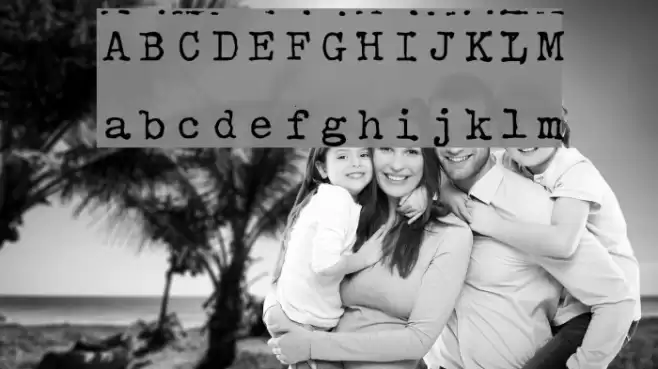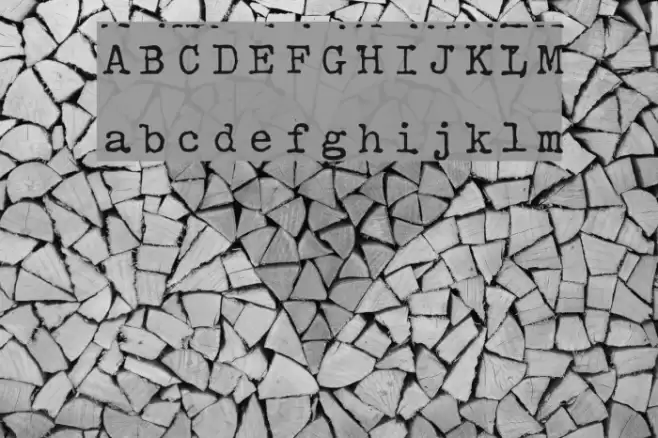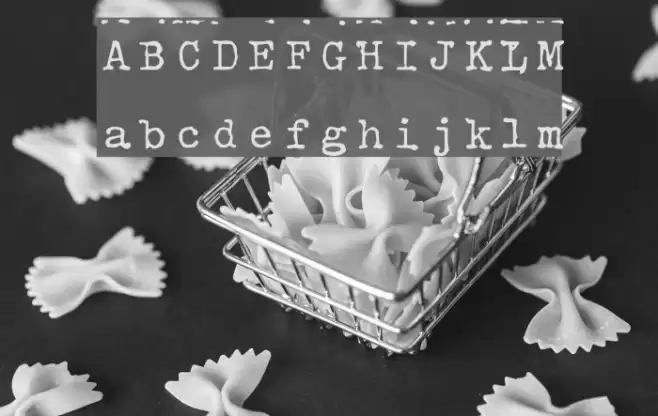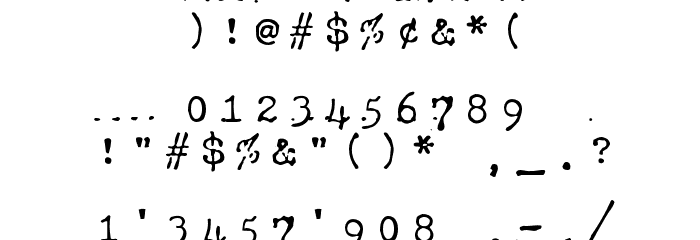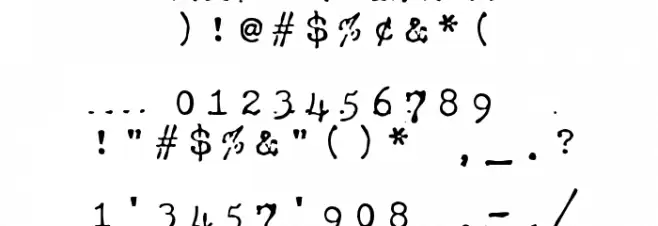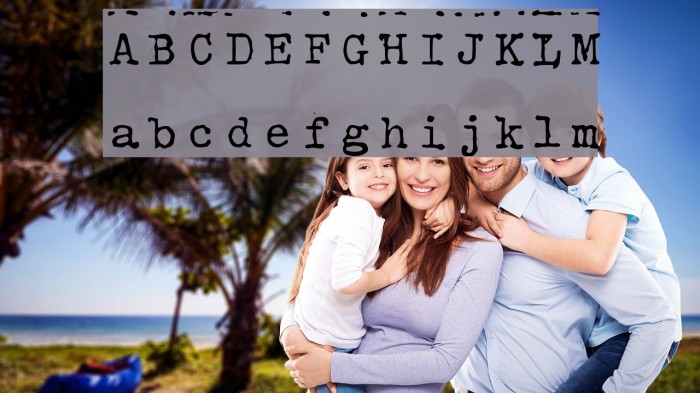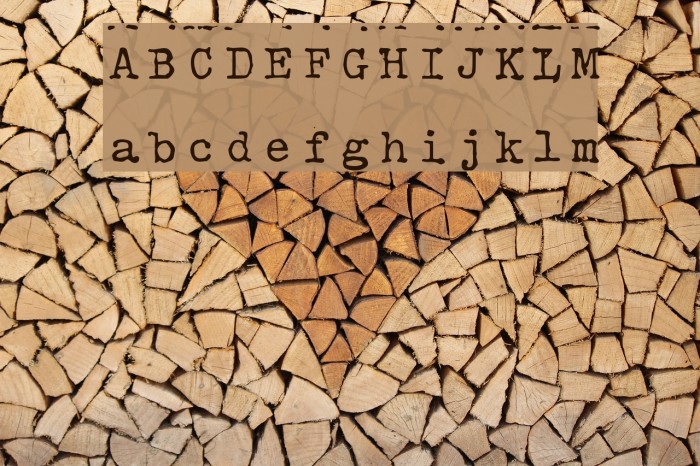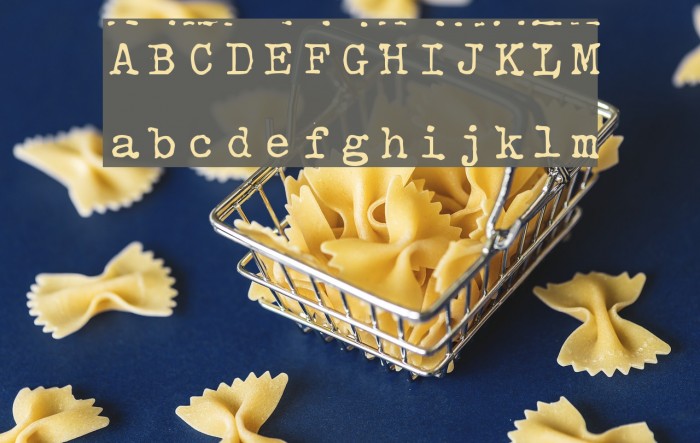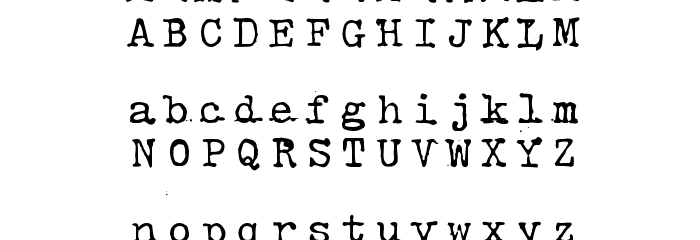
HammerKeys Font
HammerKeys Description
This font exudes a vintage, typewriter-inspired aesthetic with a slightly distressed appearance, giving it a nostalgic and authentic feel. The characters are monospaced, contributing to a uniform and orderly look, while the irregularities in the letterforms add a touch of personality and charm. The uppercase and lowercase letters maintain a consistent style, with rounded edges and subtle variations in stroke thickness that enhance its retro appeal. The numerals and special characters are crafted with the same attention to detail, ensuring a cohesive and harmonious overall design. This font is perfect for projects that aim to evoke a sense of history or nostalgia, such as retro-themed designs, vintage posters, or creative writing projects.
A vintage, typewriter-style font with a distressed, nostalgic look from Typewriter fonts.
- Proposed Projects: Ideal for retro-themed designs, vintage posters, creative writing projects, and any work aiming to evoke nostalgia.
- Overall Style: Vintage
- Use Case: Headlines, Logos, Decorative text